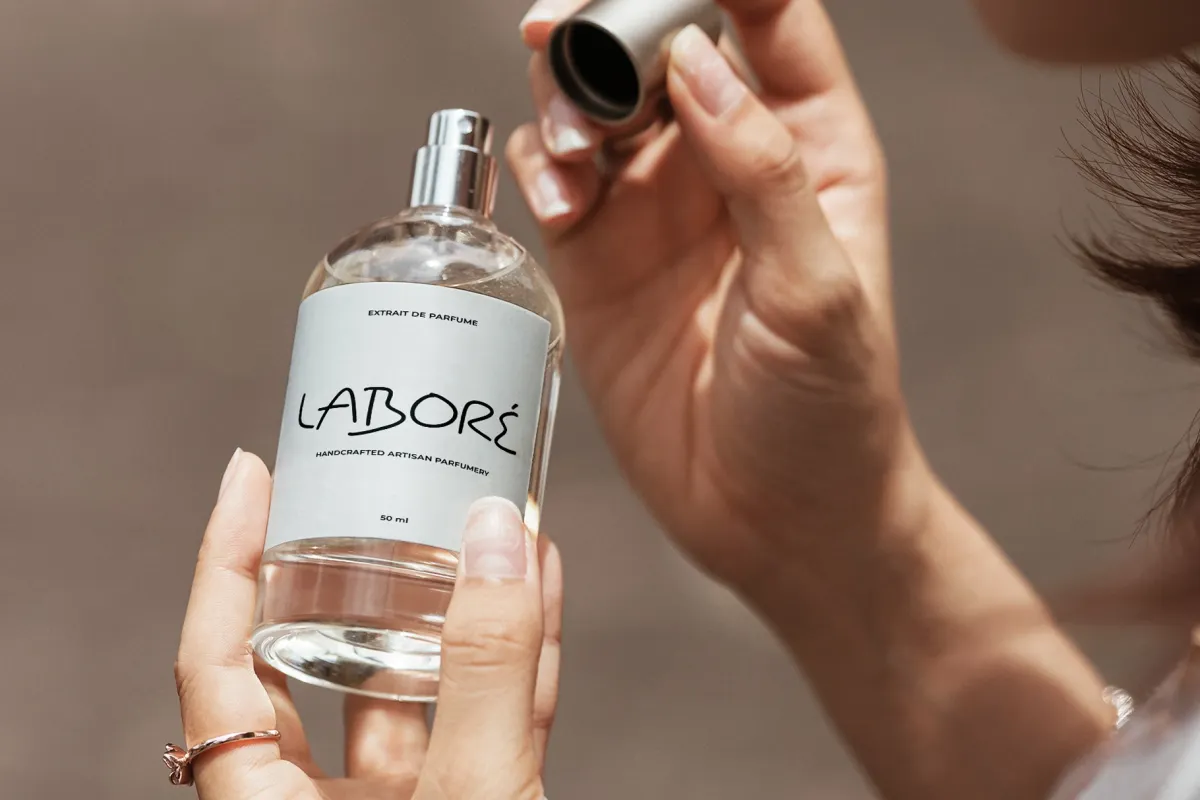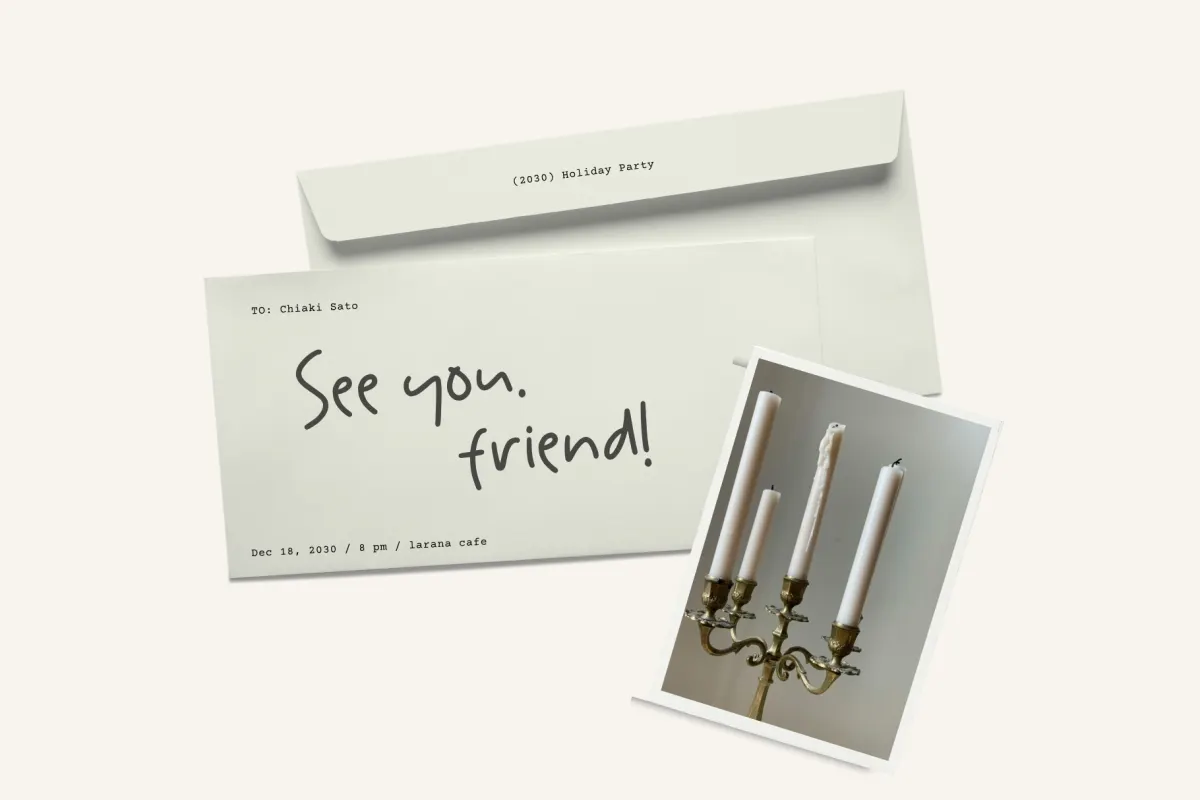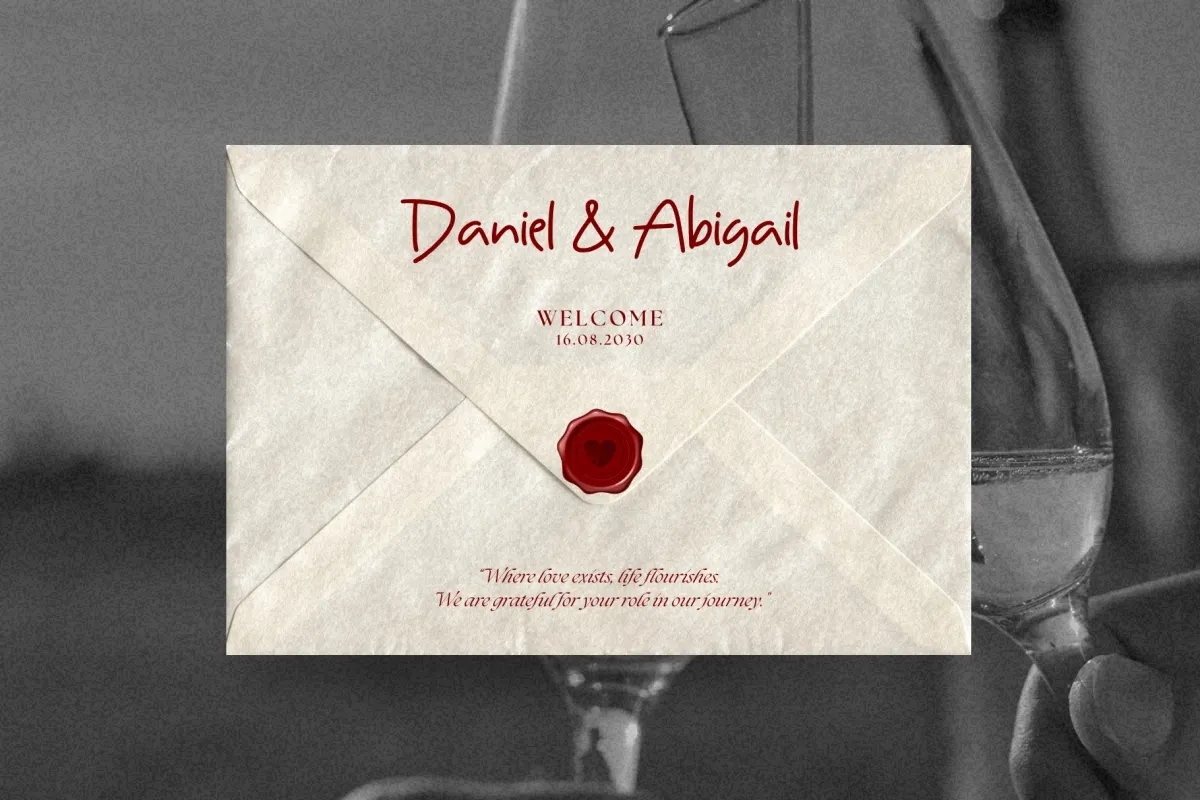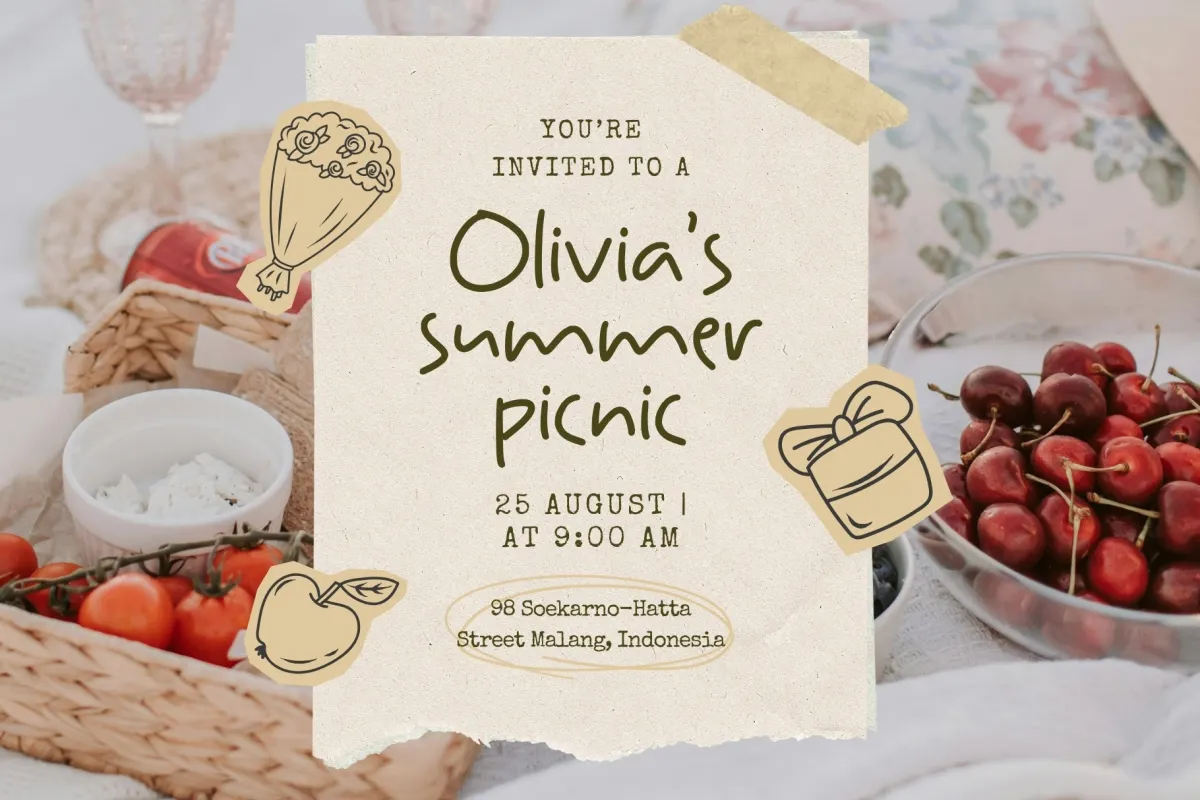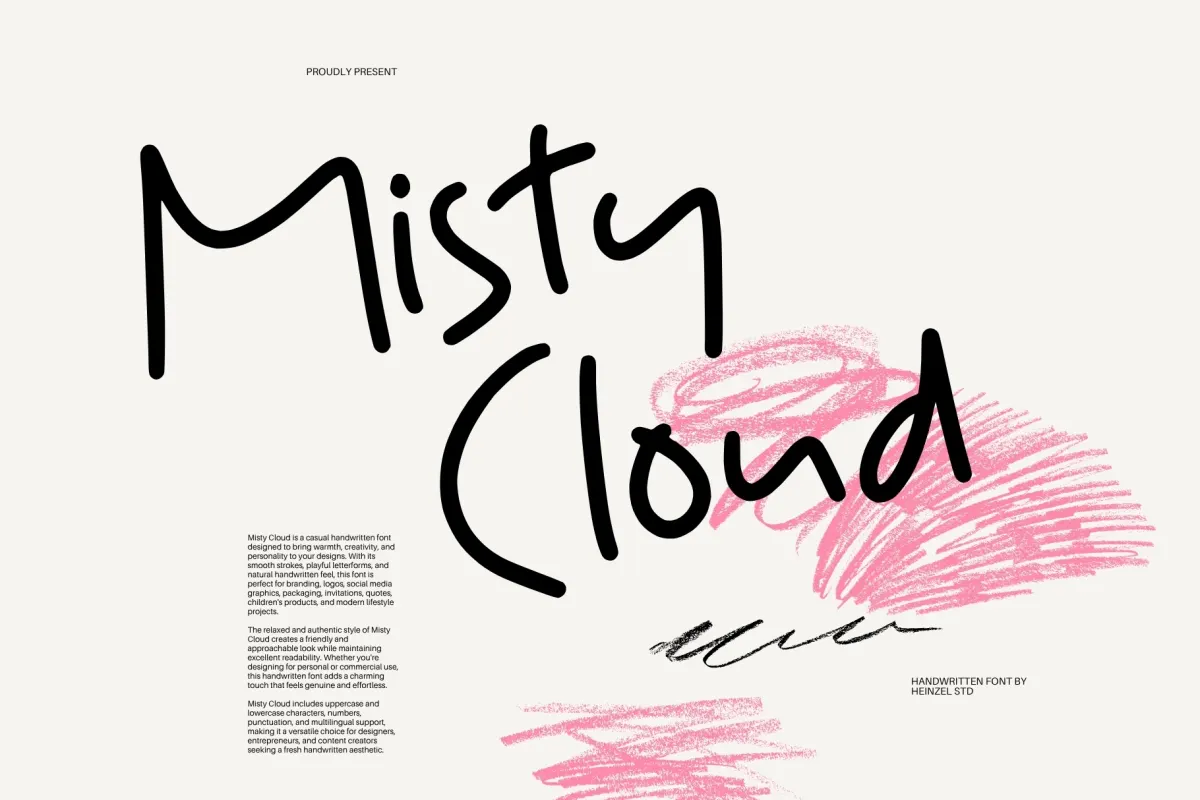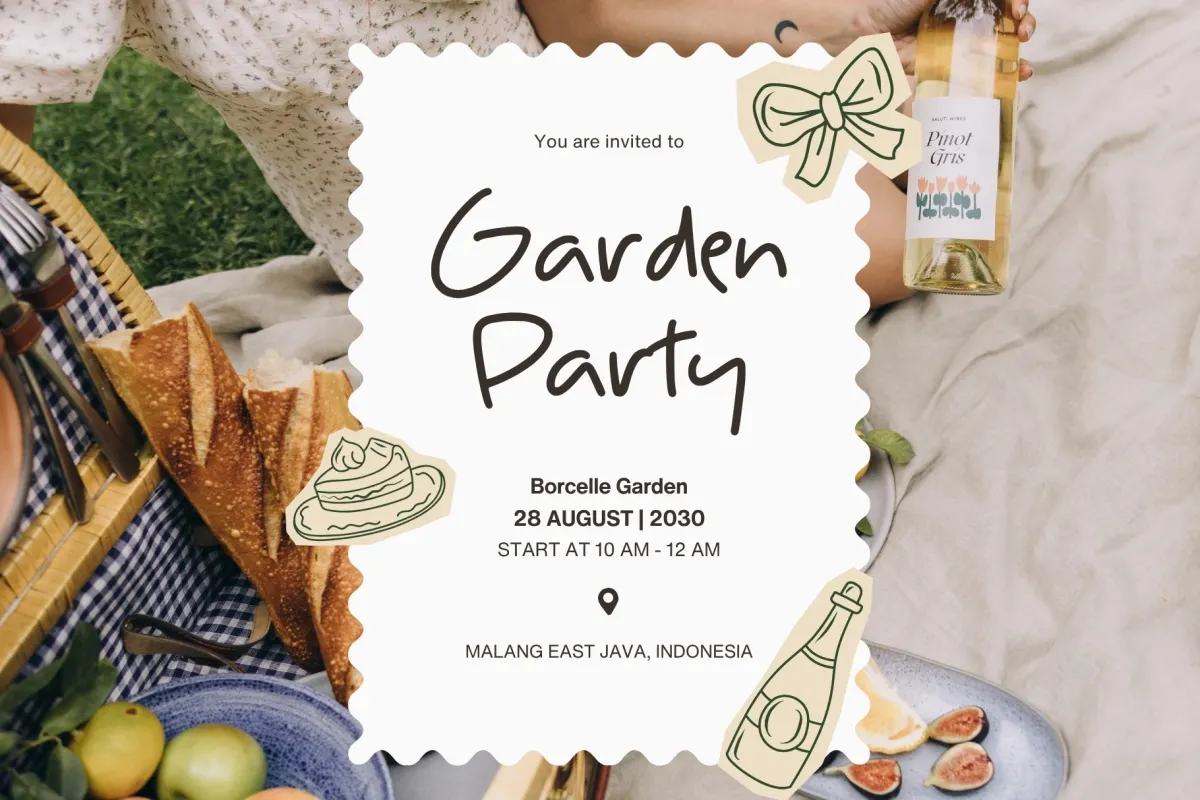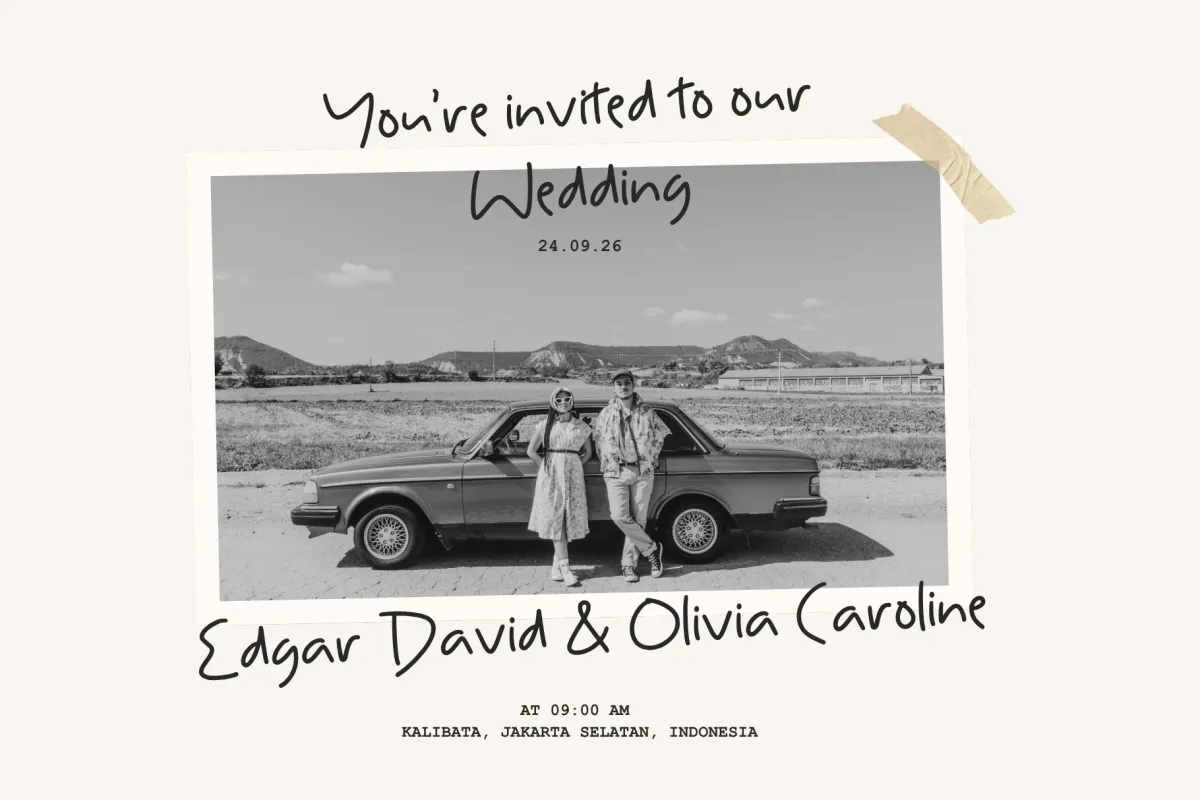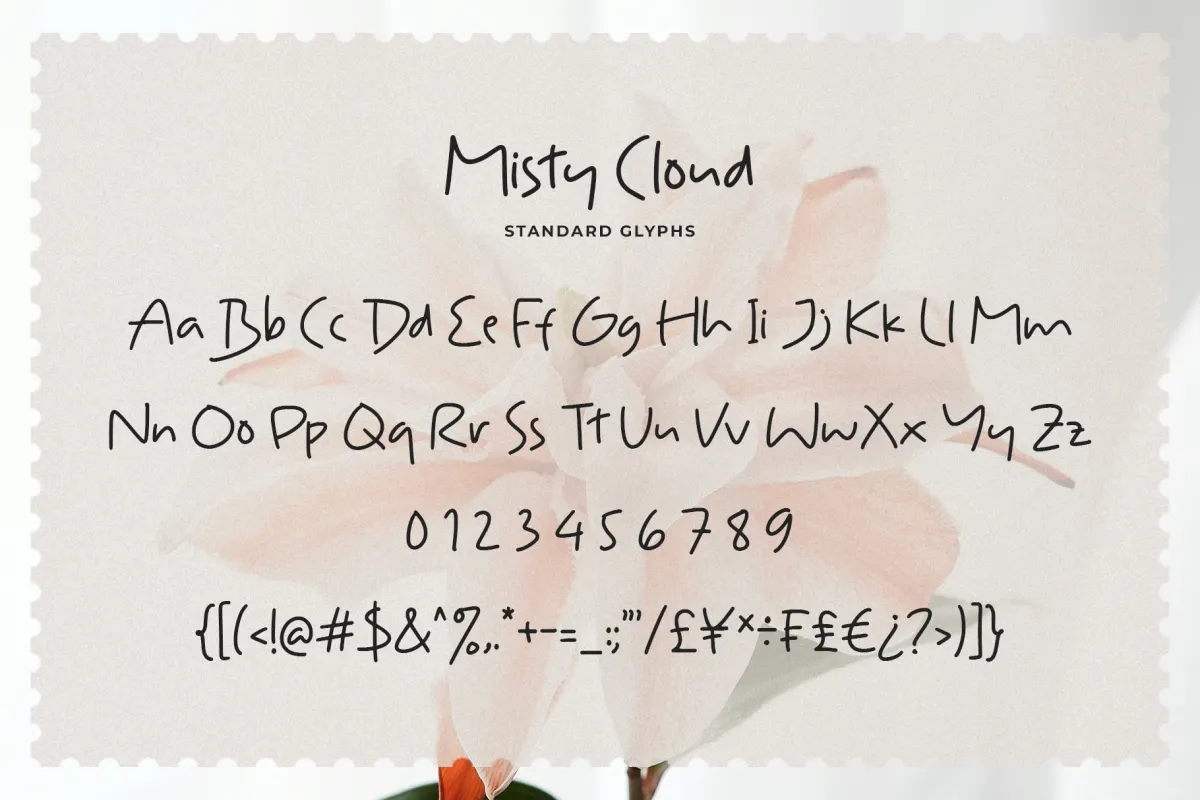
Misty Cloud - Casual Handwritten Font
Misty Cloud is a casual handwritten font with smooth, unbroken strokes and loose, looping ascenders that keep the baseline bouncing instead of sitting flat. The letterforms tilt slightly from word to word, so lines pick up a loose, unrehearsed rhythm. It reads closer to a quick note scrawled on a napkin than a formal script.
Misty Cloud works best in short, friendly lines, where warmth matters more than polish. Use it for branding, logo lockups, greeting cards, social media graphics, packaging labels, invitation suites, quote graphics, kids' product packaging, and lifestyle blog headers.